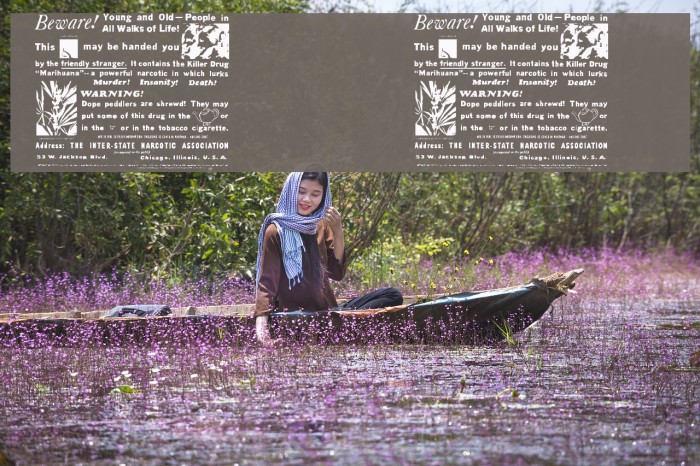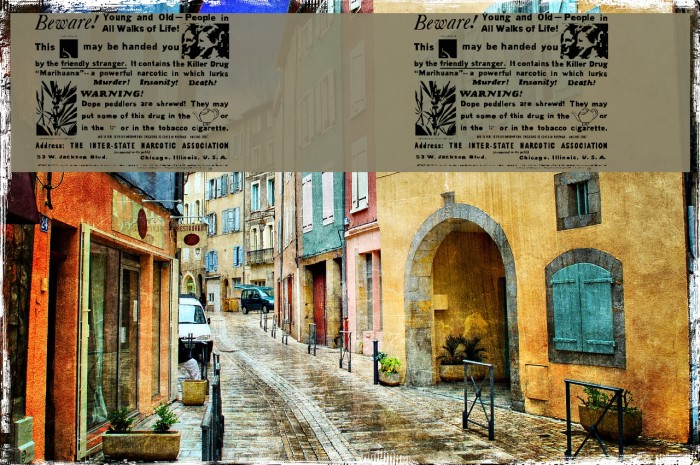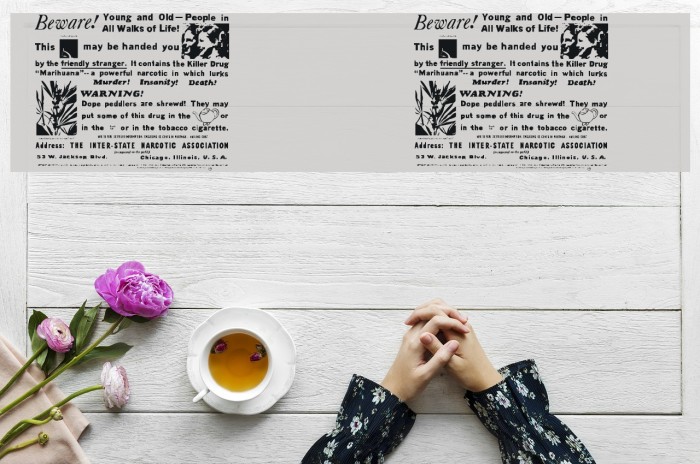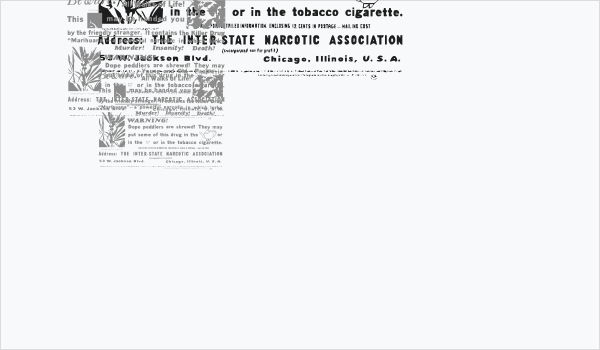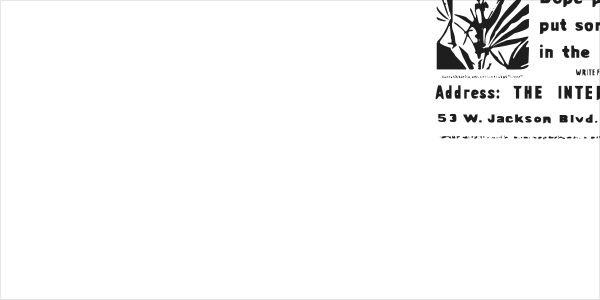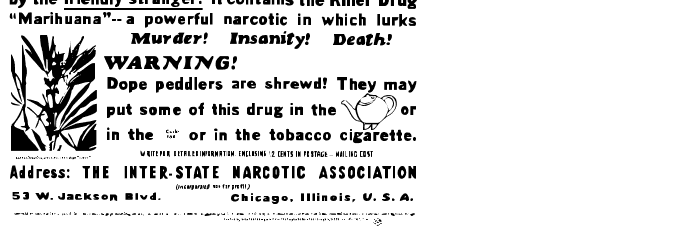
BewarethefriendlystrangerNorml Font
BewarethefriendlystrangerNorml Description
This font is a bold, impactful typeface that commands attention with its strong, authoritative presence. The letters are thick and evenly spaced, providing a sense of urgency and importance. The uppercase letters are particularly striking, with a uniform height that enhances readability. The font is reminiscent of vintage propaganda or warning posters, making it ideal for conveying critical information. Its boldness ensures that it stands out in any context, while the clean lines and lack of embellishments give it a modern touch. The font's design is straightforward yet powerful, making it suitable for headlines or any text that needs to make a strong impression.
| Use Case | Headlines, Posters, Warning Signs |
| Proposed Projects | This font is perfect for posters, warning signs, headlines, and any project requiring a strong, attention-grabbing typeface. |